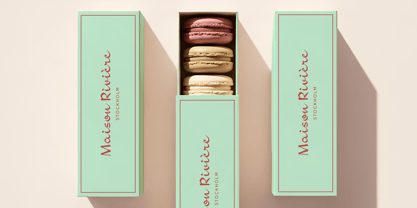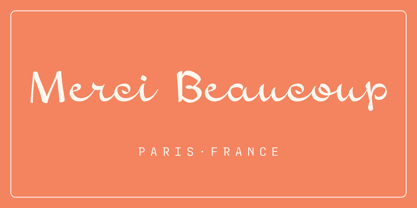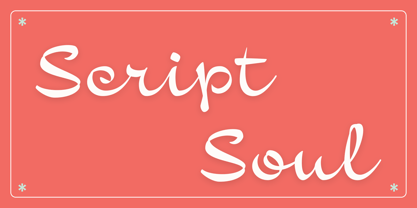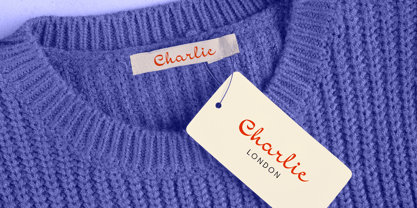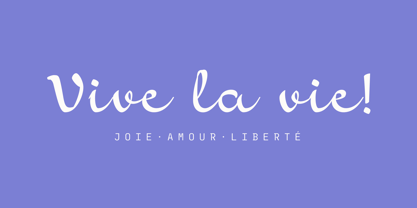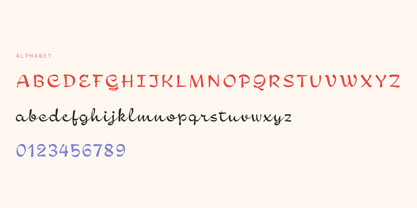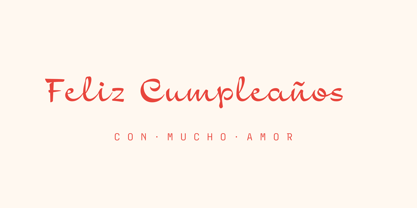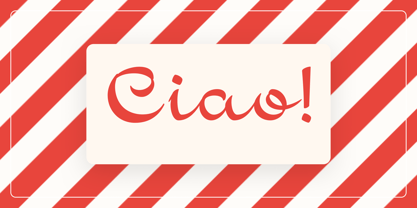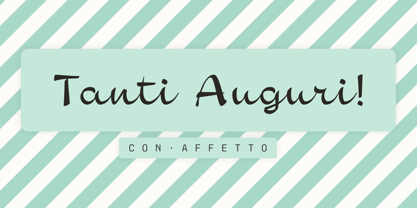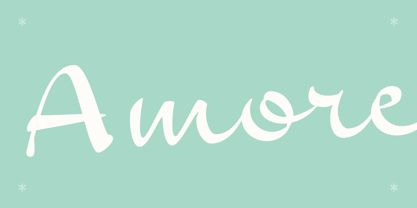
Piccola
Piccola is a warm, handcrafted script typeface inspired by the art of calligraphy. Its soft curves and fluid connections replicate the natural rhythm of pen on paper, making it an ideal choice for branding, packaging, editorial design, greeting cards, and any project that requires a personal, human touch. With extensive Latin language support and a variety of OpenType features, Piccola enhances your designs with elegance and versatility, ensuring your message resonates beautifully across various mediums. Where to use Piccola? From product labels to wedding invitations and café menus, Piccola brings warmth and character wherever a personal feel matters. It shines on cosmetics packaging, boutique logos, social media graphics, book covers, and editorial headlines. Use it for signage, apparel, stationery, or any creative project where you want your typography to feel handmade rather than manufactured.